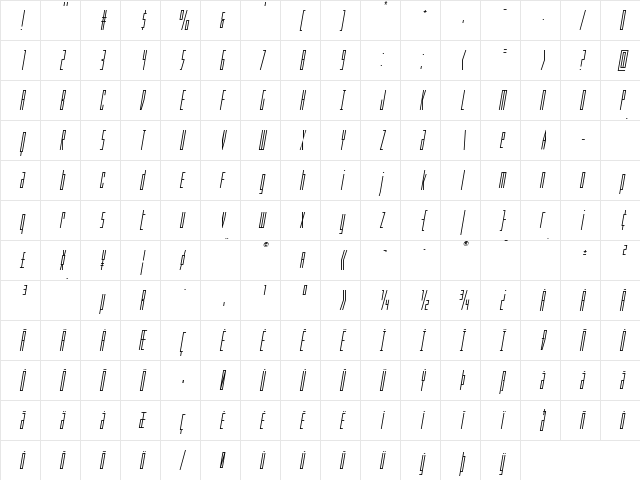
Phantacon Title Italic Italic
Design Context for Phantacon Title Italic Typeface
Phantacon Title Italic offers clean, dependable letterforms without strong stylistic allegiance, making it a practical choice for designers who need flexibility. The dynamic lean of this cut emphasises speed and emphasis in any layout.
Pro Tip: Use Phantacon Title Italic for emphasis, pull quotes, and subheadings where its slanted energy can add rhythm to the layout.